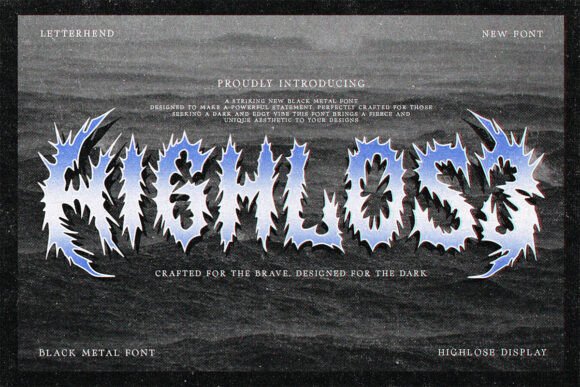
Highlose: A Font That Commands Attention
Fonts do more than convey text—they shape the tone, mood, and identity of a design. Highlose is a bold black metal display font that brings intensity, rebellion, and raw energy to any visual project. With its sharp, jagged edges and electrifying style, it’s inspired by the underground music scene and the fearless spirit of metal culture. Whether you’re crafting an album cover, designing merchandise, or branding an event, Highlose stands out as a powerful typographic choice.
What Is Highlose?
Highlose is a typeface designed for those who want their words to be heard—loud and clear. It captures the essence of black metal aesthetics with its aggressive letterforms and dark, brooding character. Unlike standard fonts, Highlose isn’t meant for body copy; it shines in headlines, logos, posters, and other large-scale applications where impact matters most. Its structure leans into asymmetry and distortion, giving it a chaotic yet controlled feel that mirrors the intensity of alternative art and music genres.
This font is ideal for designers who are looking to make a strong visual statement. The contrast between thick and thin strokes, along with the angular shapes, creates a sense of movement and danger. It's not just a font—it's a vibe.
Beginners Looking to Create Bold Designs
If you're new to graphic design but want to create something eye-catching, Highlose can be your secret weapon. Its high-contrast style means you don't need advanced skills to achieve a professional look. Just pair it with the right background and color scheme, and you've got a visually striking composition.
For example, a beginner blogger might use Highlose for a post title on a dark-themed website about heavy music. The font adds an instant layer of authenticity and edge without requiring complex layout techniques.
Professionals in Music and Fashion Industries
For professionals working in music production, fashion, or event planning, Highlose offers a unique way to align typography with brand identity. Its rebellious nature makes it especially popular among independent artists and labels who want to stand apart from mainstream visuals.
A record label designer could use Highlose to craft an album cover that reflects the band’s sound and attitude. Similarly, a streetwear brand might incorporate it into clothing tags or promotional materials to emphasize a gritty, alternative lifestyle.
Entrepreneurs and Marketers Seeking Memorability
Business owners and marketers often rely on typography to build brand recognition. Highlose, with its distinctive look, can help establish a memorable presence, particularly in niche markets like alternative retail, event promotions, or digital marketing campaigns targeting subcultures.
Imagine using Highlose in a poster for a local punk concert or as part of a logo for a new line of leather jackets. The font doesn’t just communicate the message—it reinforces the entire aesthetic and experience of the product or event.
Freelancers and Creatives Wanting Versatility
Freelance designers appreciate fonts that can adapt to different styles while maintaining their core personality. Highlose fits this need perfectly. While inherently dark and edgy, it can be stylized further with effects like drop shadows, gradients, or overlays to suit specific projects.
- Use it in digital banners for a festival with a gothic theme.
- Incorporate it into a book cover for a horror novel or dystopian fiction.
- Experiment with color variations to match different lighting conditions in print or web media.
Educators Teaching Design Principles
Design educators often look for examples that highlight how typography influences perception. Highlose serves as an excellent case study for discussing contrast, texture, and emotional resonance in visual communication. It can also spark discussions around subcultural aesthetics and the psychology of design.
In a classroom setting, students might analyze how the font evokes aggression or darkness and then apply similar principles to their own creative work. Educators can encourage learners to explore pairing Highlose with softer elements to understand balance and hierarchy better.
Hobbyists and DIY Enthusiasts Crafting at Home
Home designers and hobbyists who enjoy creating personal projects can benefit from Highlose’s accessibility. Many font platforms offer free or affordable licenses, making it easy to experiment without financial pressure. This is especially valuable for those who enjoy customizing T-shirts, zines, or handmade posters as part of their creative outlet.
For instance, a fanzine creator could use Highlose to headline an article about underground bands, adding an authentic, raw feel to the publication. Or a hobbyist making custom stickers for their bike might choose Highlose to reflect their love for alternative culture.
Quality Over Cost
Some users prioritize the quality of the font above all else. Highlose delivers premium visuals with clean vector lines and consistent spacing, even when scaled up. For professionals and creators who need reliable output across various formats, the font’s precision ensures it looks great whether printed on vinyl or displayed on a screen.
Final Thoughts
Highlose is more than just a font—it’s a symbol of defiance and creativity. It empowers designers to break the mold and embrace a more daring approach to typography. Whether you’re a pro or just starting out, it offers a unique opportunity to express yourself through design.
So, if you’re ready to unleash the power of Highlose, explore its potential in your next project. Let it speak for you when words fall short.